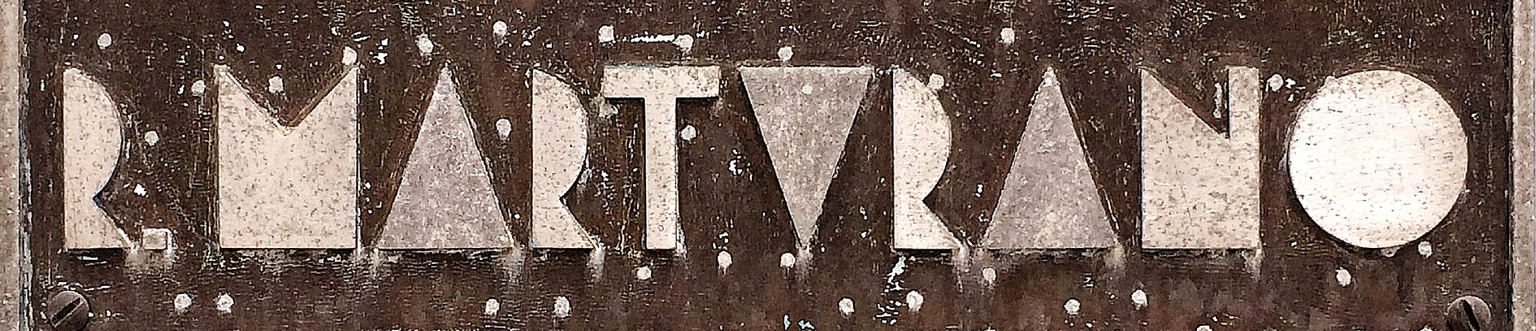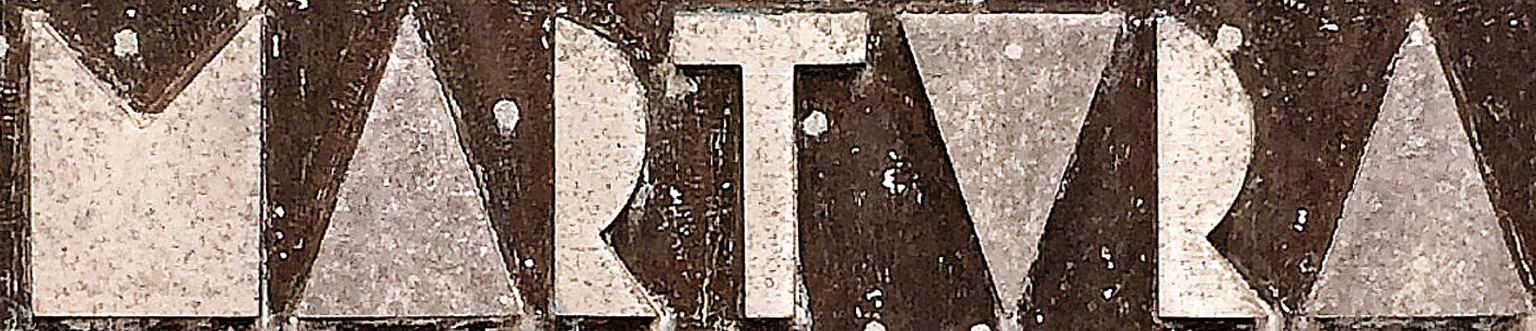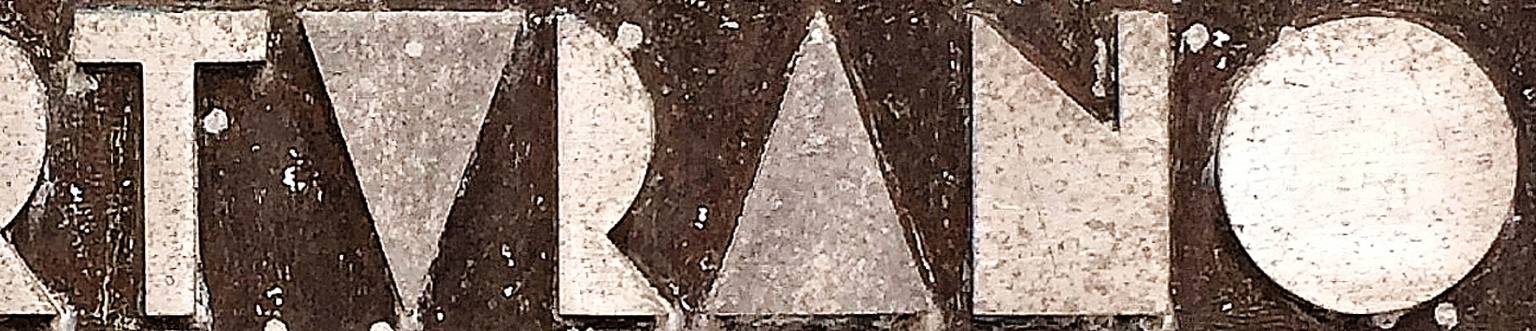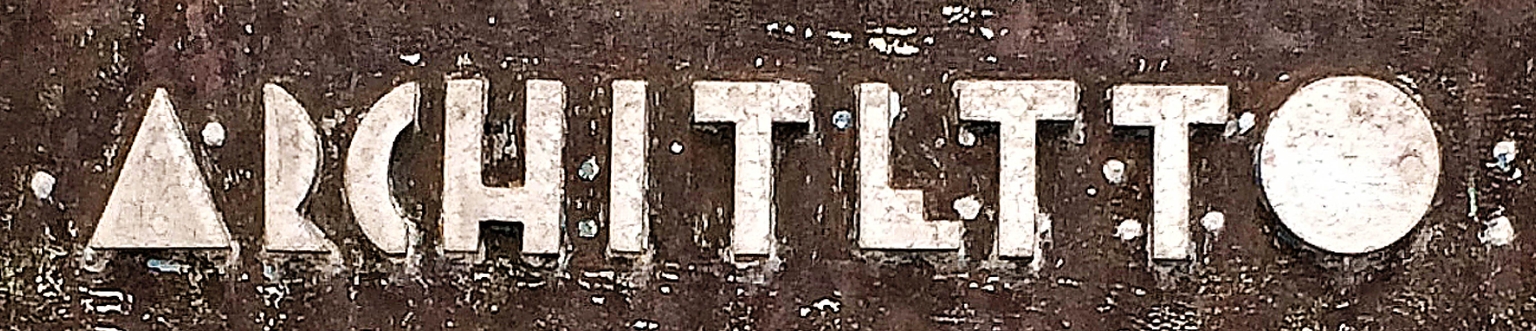
Pugliese
Pugliese is a bold and expressive display typeface designed by Ramiro Espinoza, inspired by striking examples of Futurist lettering photographed during a trip through Italy’s Puglia region. Among the key references was a 1935 fabric label for the brand Dekros, whose dynamic, angular letterforms echoed the energy and experimentation of early 20th-century Italian graphic design.
Drawing from these sources, Espinoza crafted Pugliese as a contemporary homage to Futurist aesthetics—full of sharp contrasts, rhythmic tension, and geometric invention. Its letterforms are daring yet carefully constructed, evoking the speed, movement, and optimism that defined the avant-garde spirit of the era.
More than a revival, Pugliese reimagines the eccentric charm of vintage Italian commercial lettering for modern applications. It’s ideal for editorial headlines, posters, and identity projects that aim to make a confident visual statement. Now available through ReType, Pugliese invites designers to explore a forgotten corner of typographic history with fresh eyes.